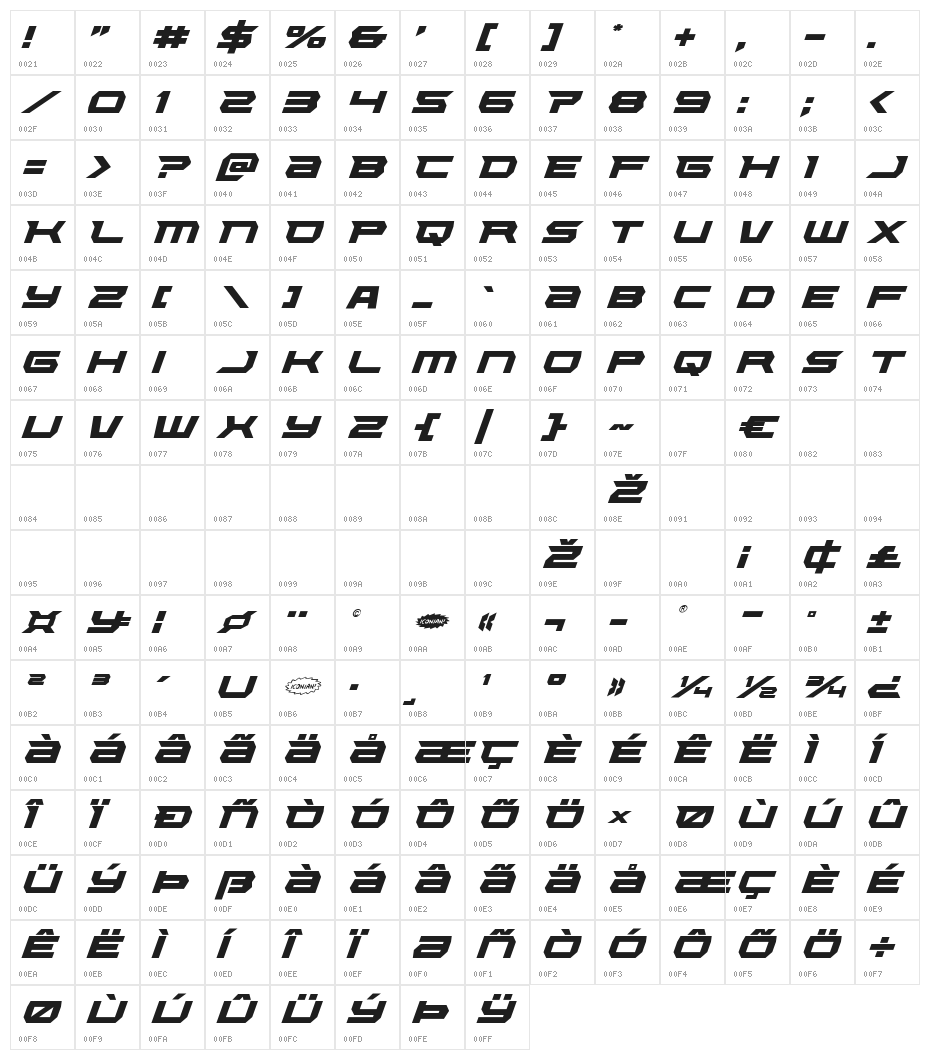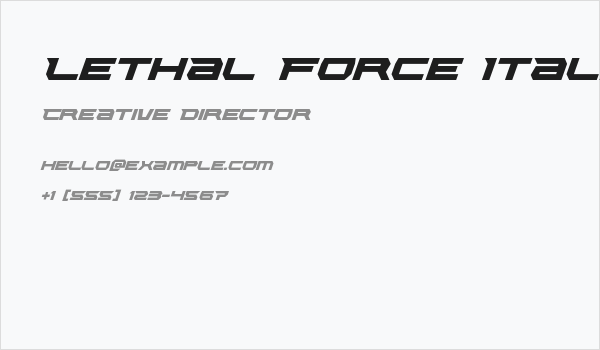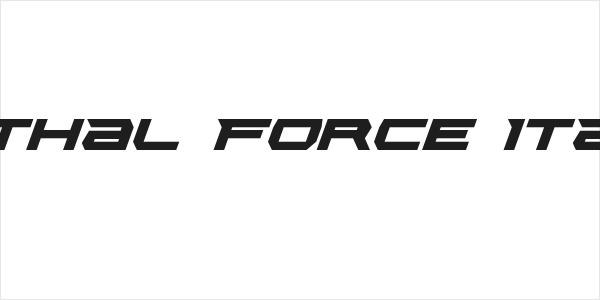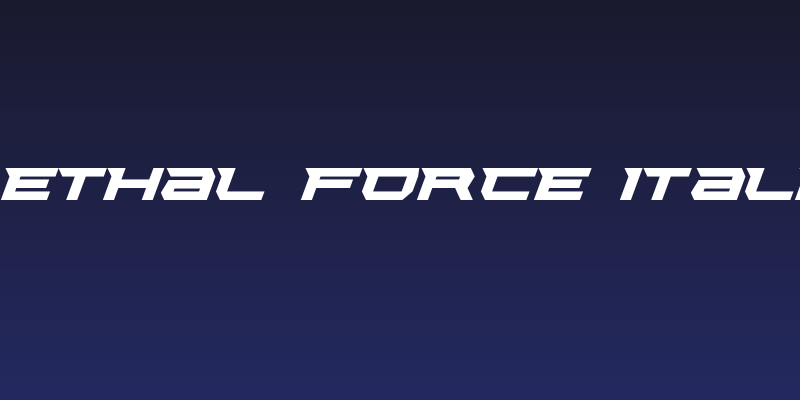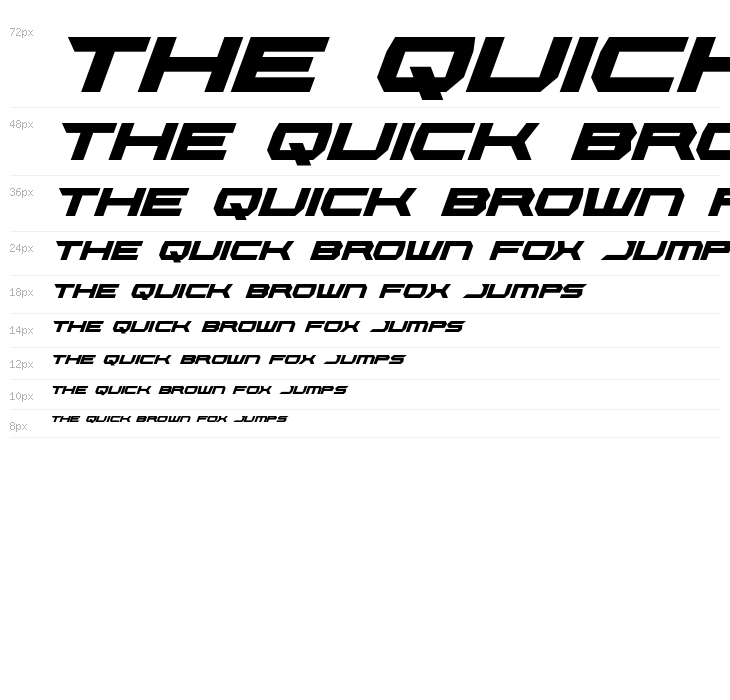
Lethal Force Italic Font
Lethal Force Italic Description
This font features a bold, italicized style with sharp, angular edges and a futuristic appearance. The characters are designed with a forward-leaning slant, giving a sense of motion and speed. The uppercase and lowercase letters maintain a consistent geometric structure, while the numbers and special characters complement the overall aesthetic. The font's design is reminiscent of sci-fi themes, making it suitable for projects that require a modern and dynamic look.
| Proposed Projects | Ideal for sci-fi themed projects, video game titles, movie posters, and branding that requires a modern, dynamic appearance. |